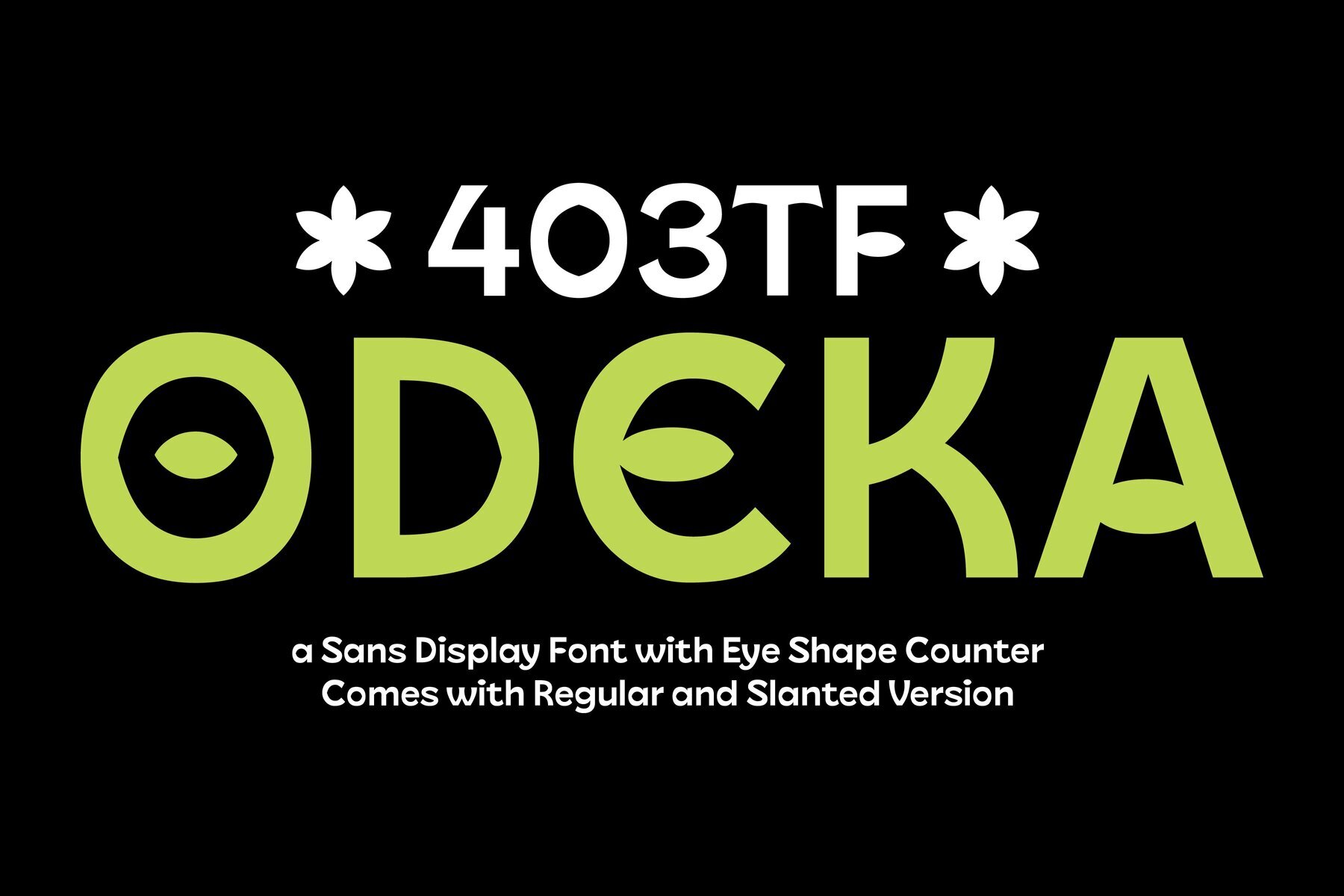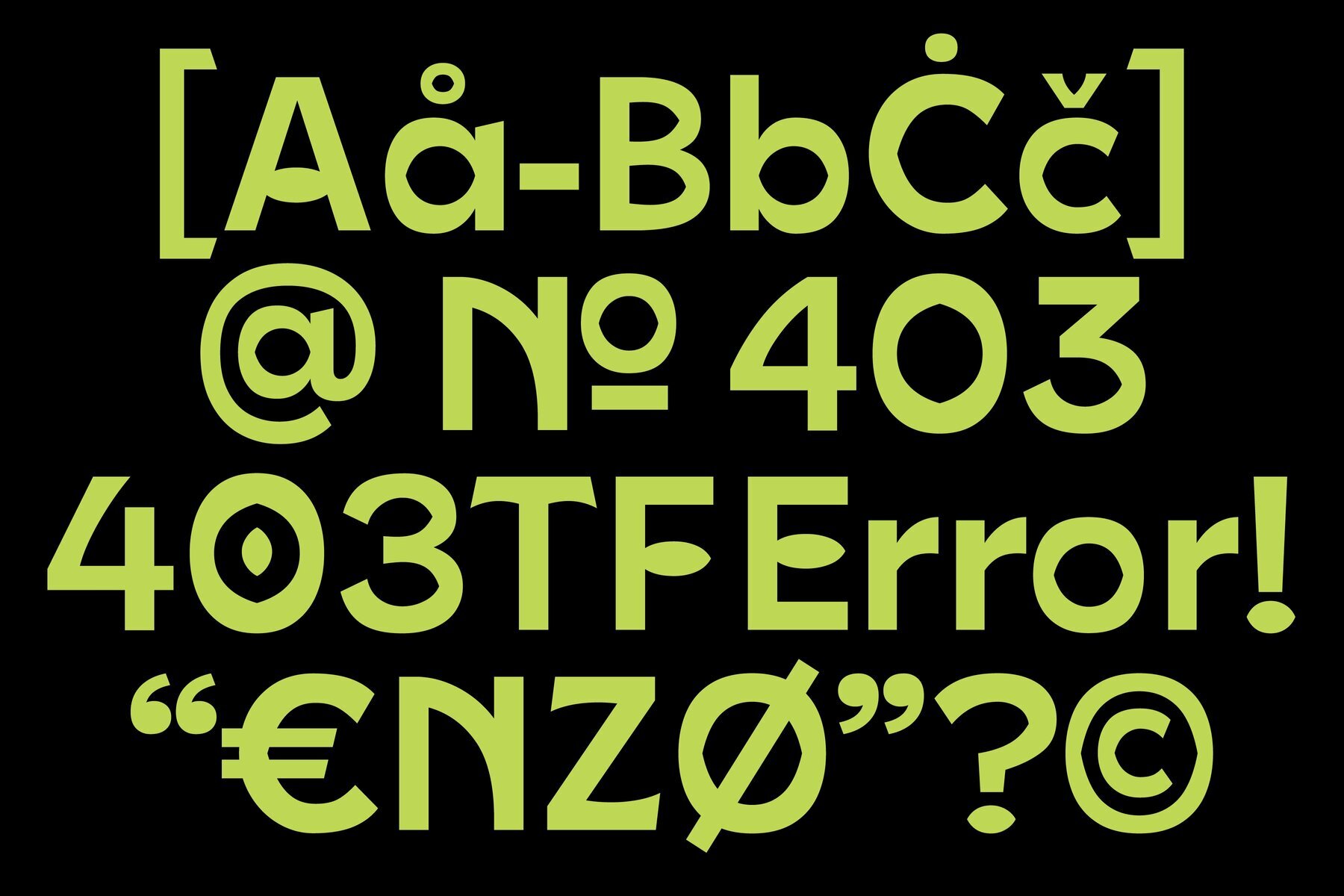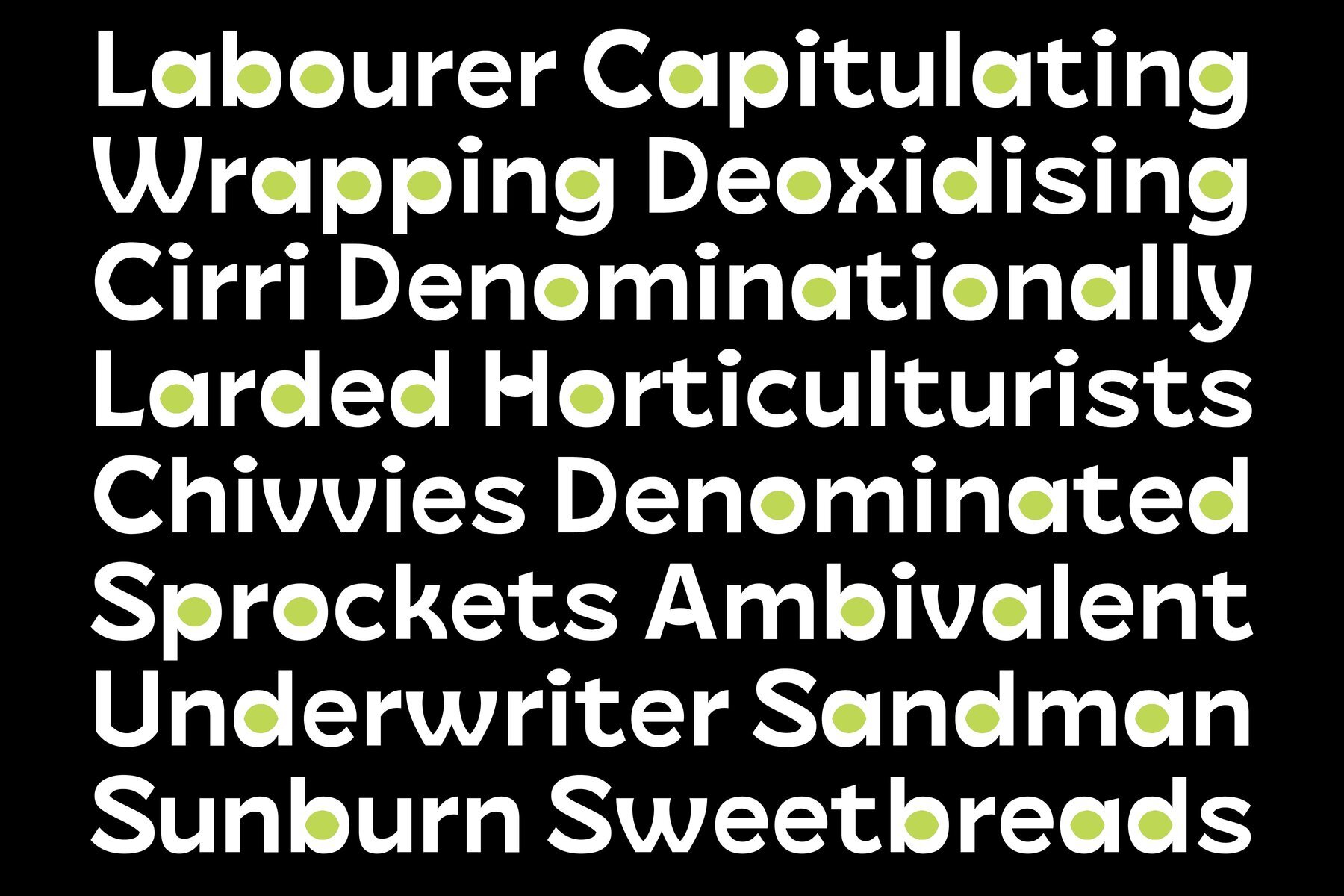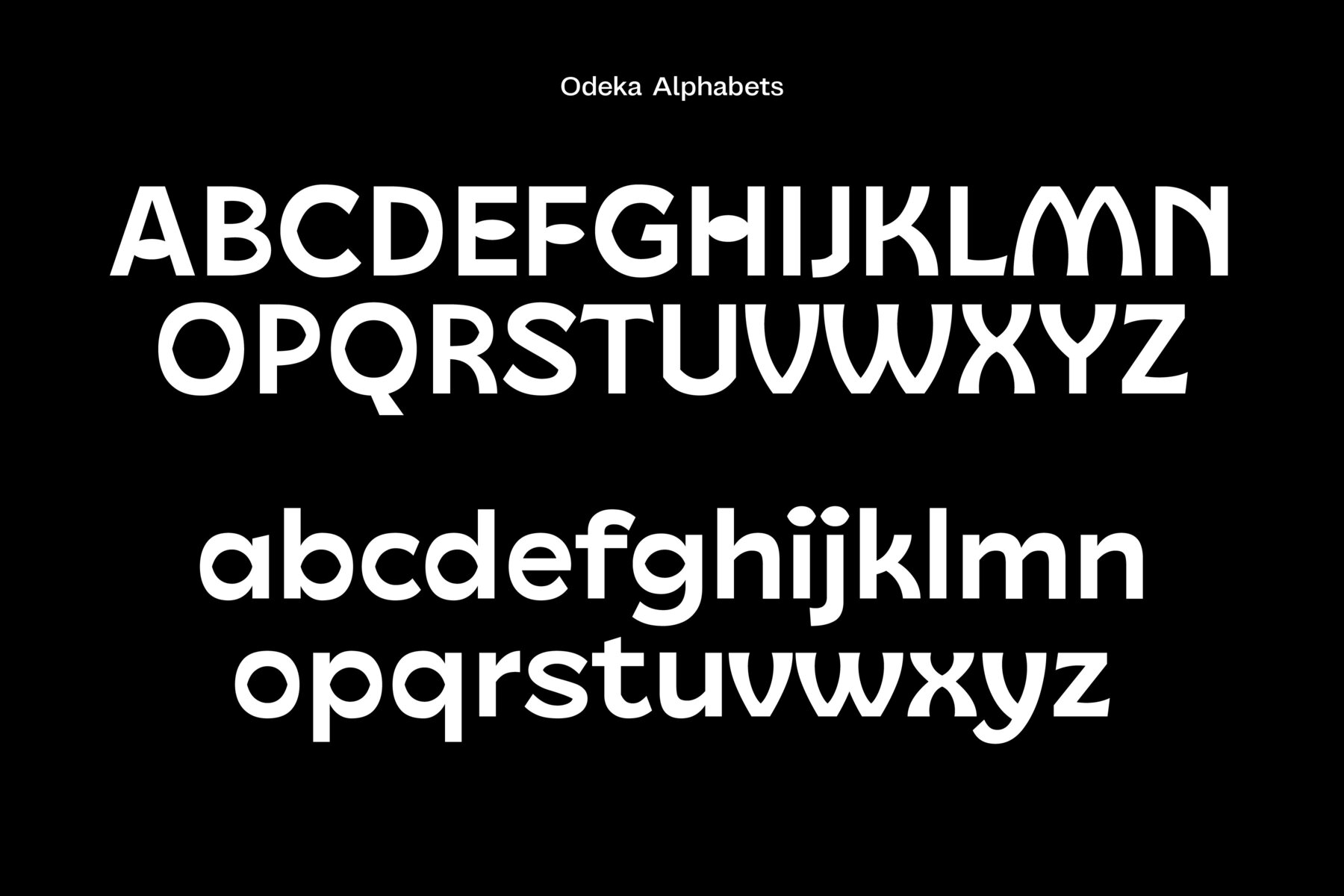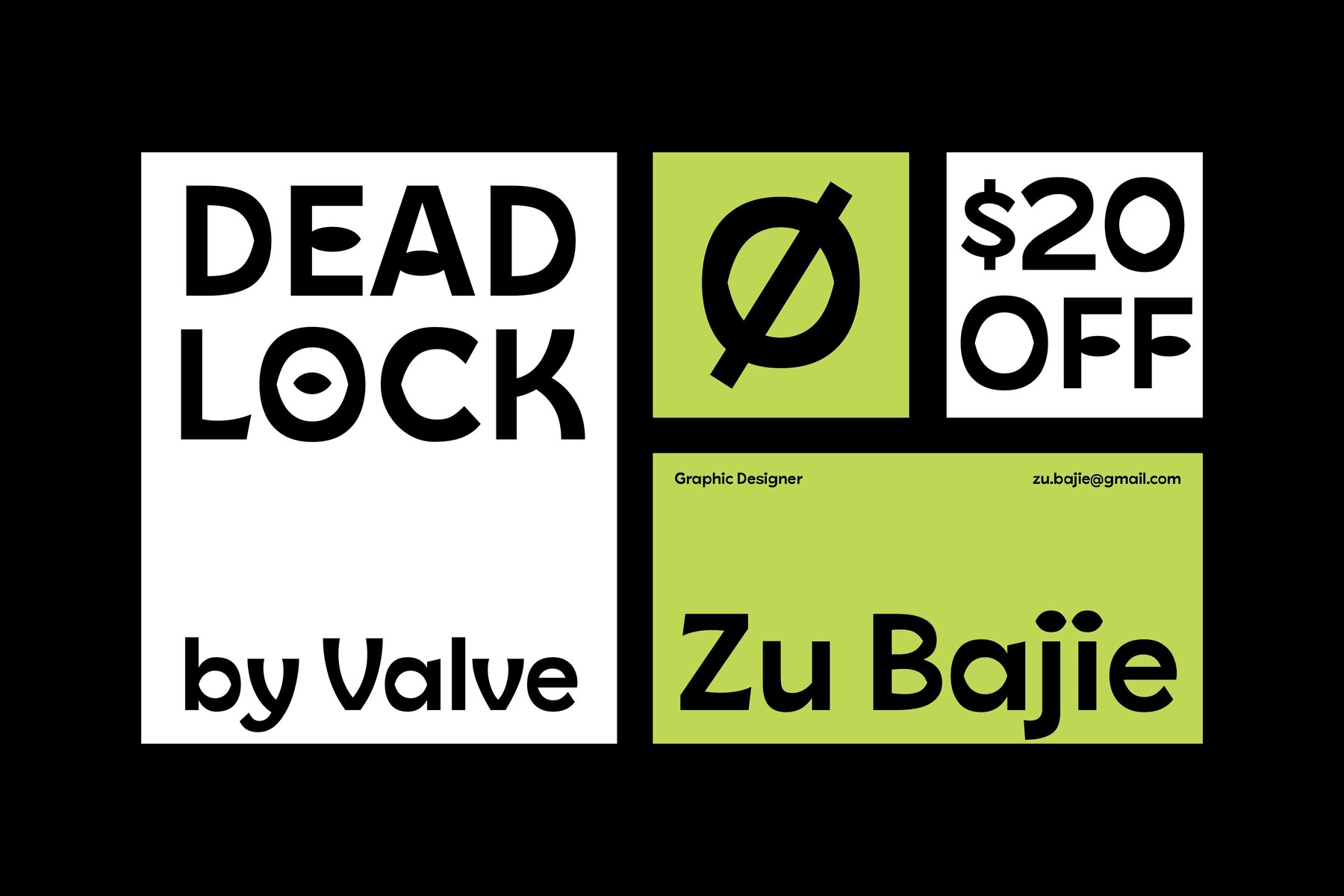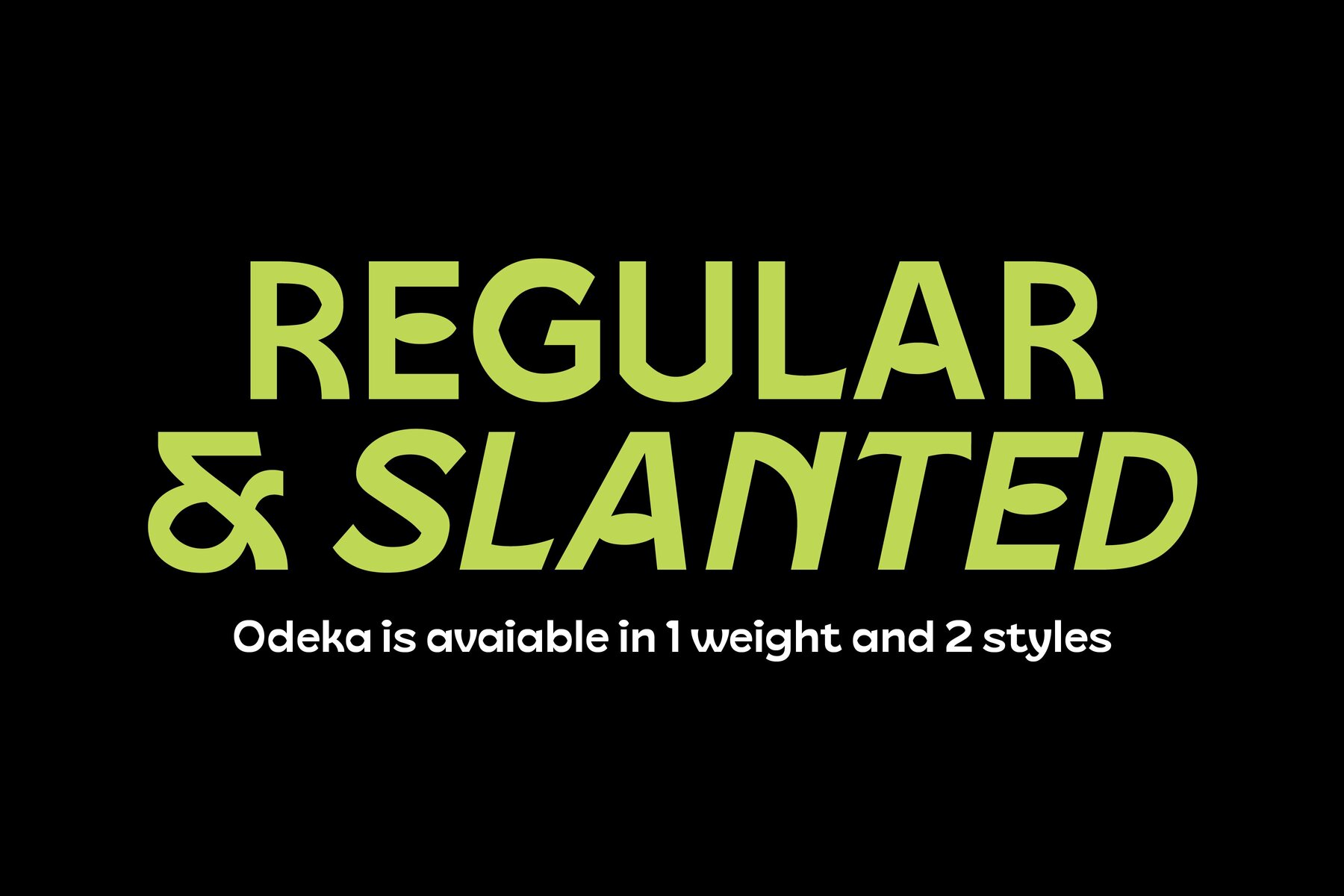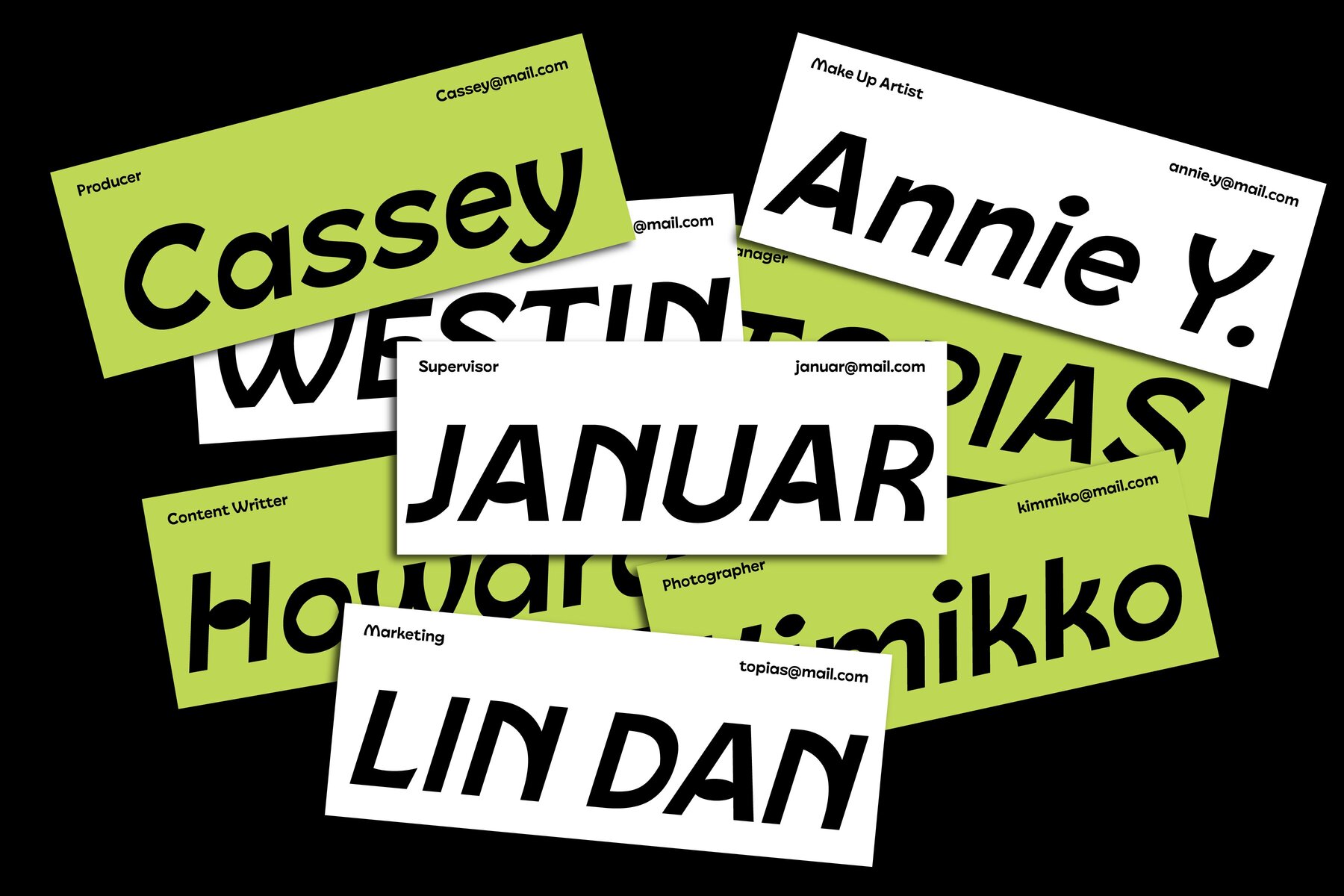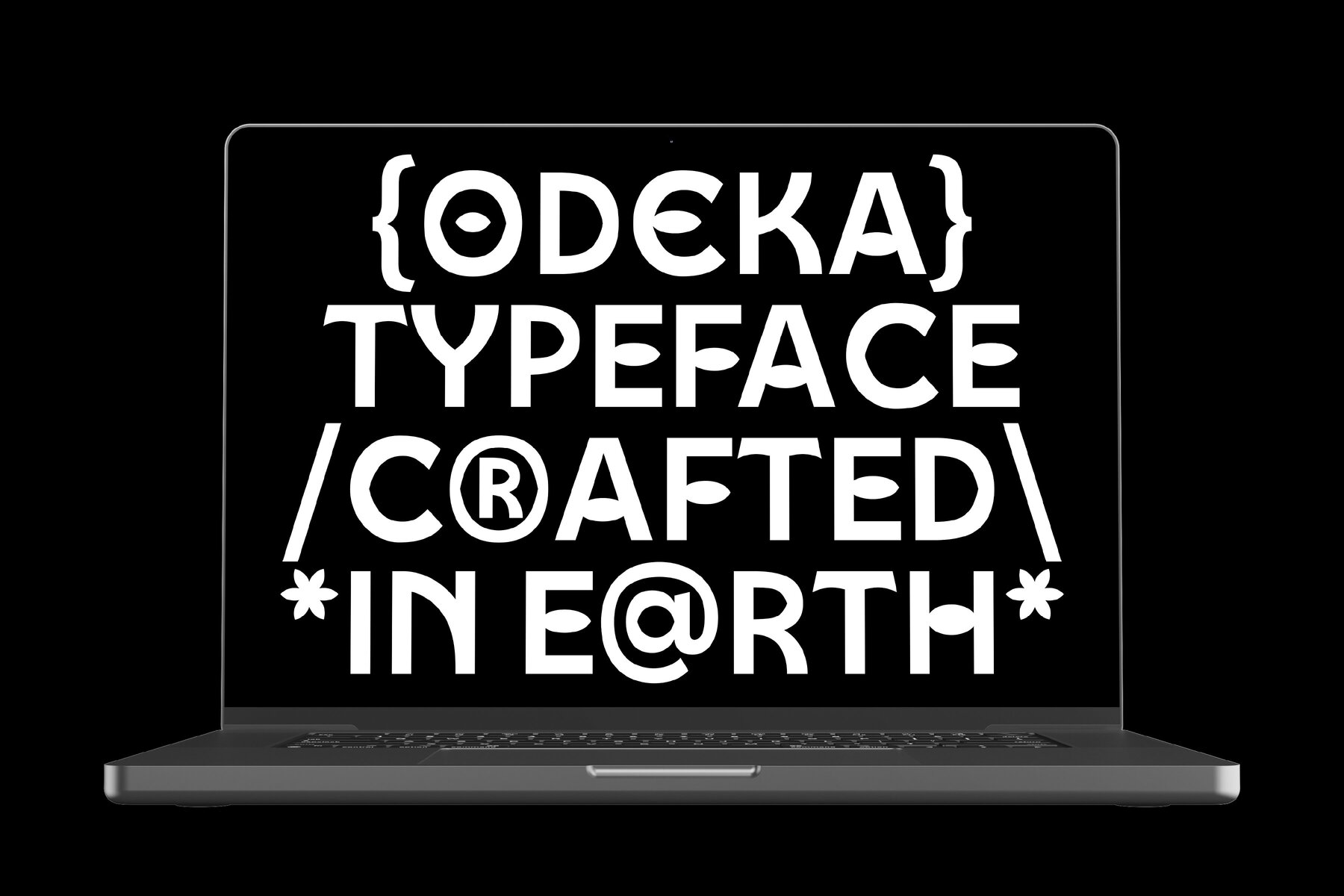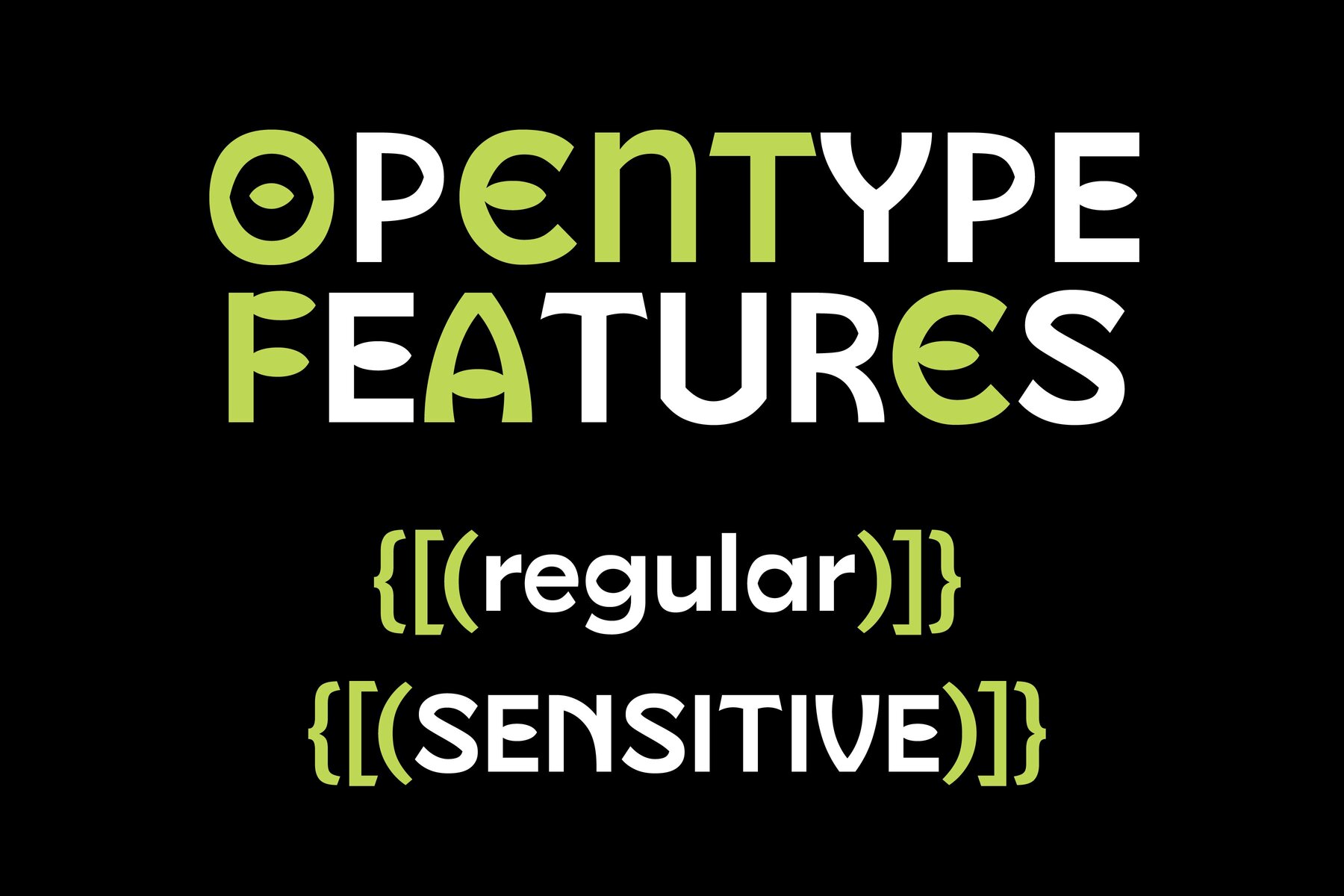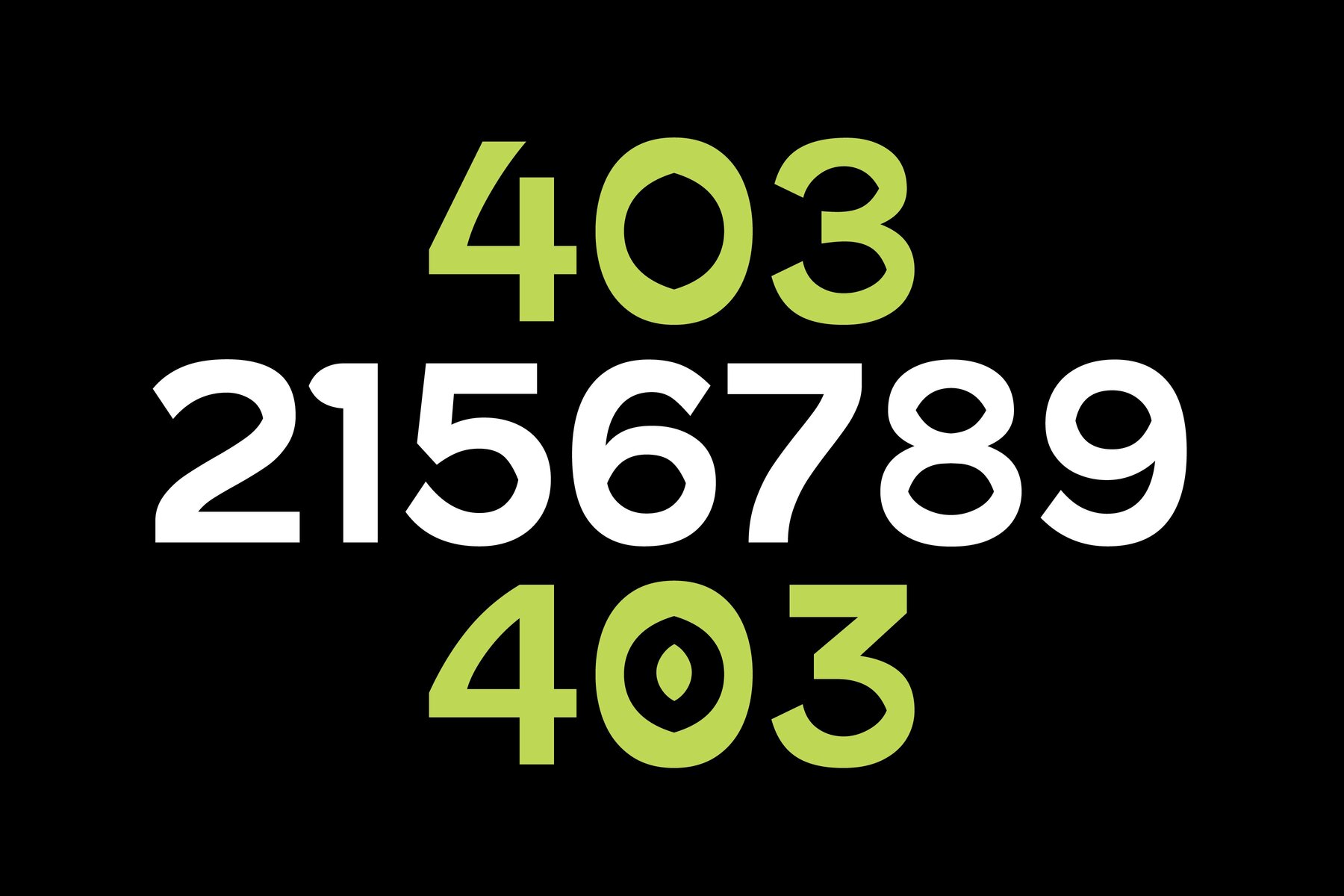
403 Odeka Font
403 Odeka a striking sans-serif display font that brings a modern twist to your creative projects. Featuring unique eye-shaped counters, this typeface adds a distinctive flair to any design. Available in both regular and slanted versions, 403 Odeka offers versatility for a variety of applications. Whether you're designing posters, crafting a brand identity, or creating impactful headlines, this font delivers clarity and style. With full multilingual support and an array of ligatures, 403 Odeka ensures your message is communicated effectively across different languages. Elevate your design game with this contemporary and adaptable typeface.